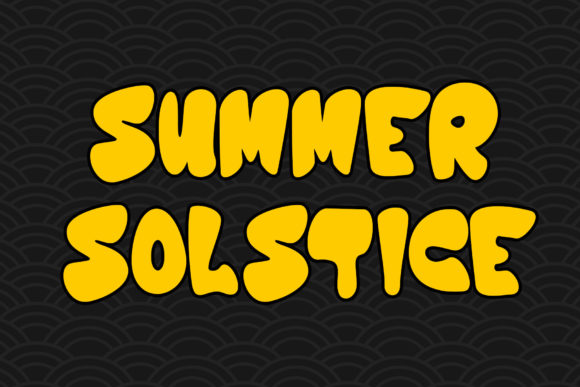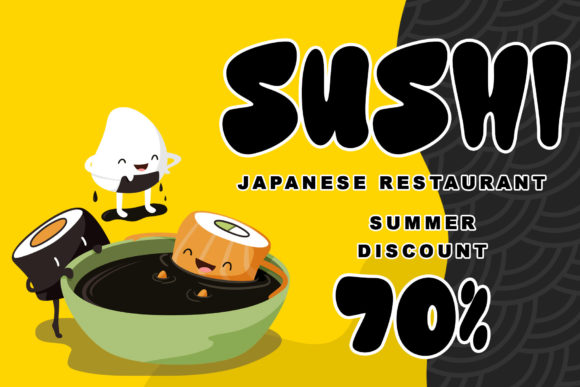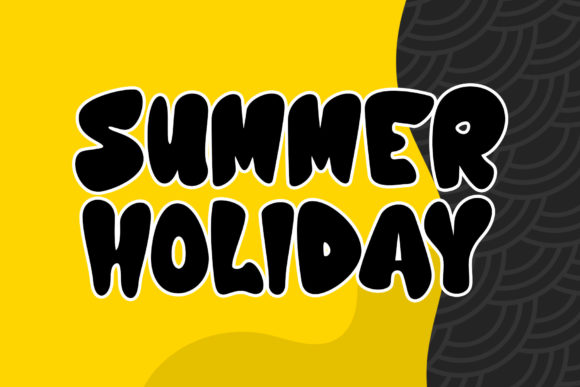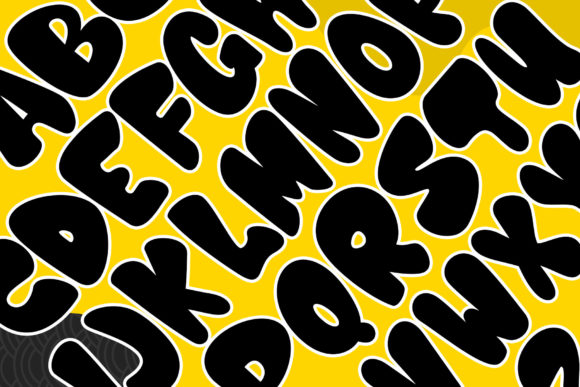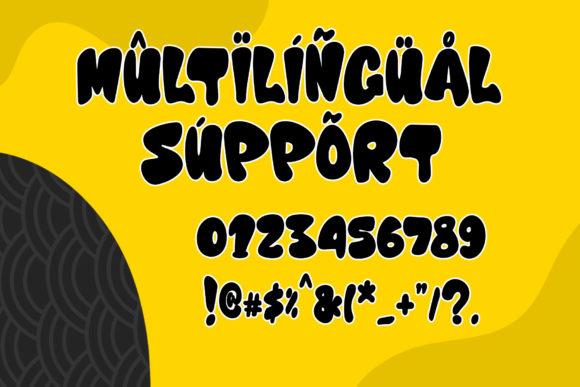
Introduction to Nijikon Japan Font
Nijikon Japan is a cool and friendly display font, inspired by Japanese cartoons.
Get inspired by its childlike charm and use it to create fun designs .
Key Features of Nijikon Japan Font